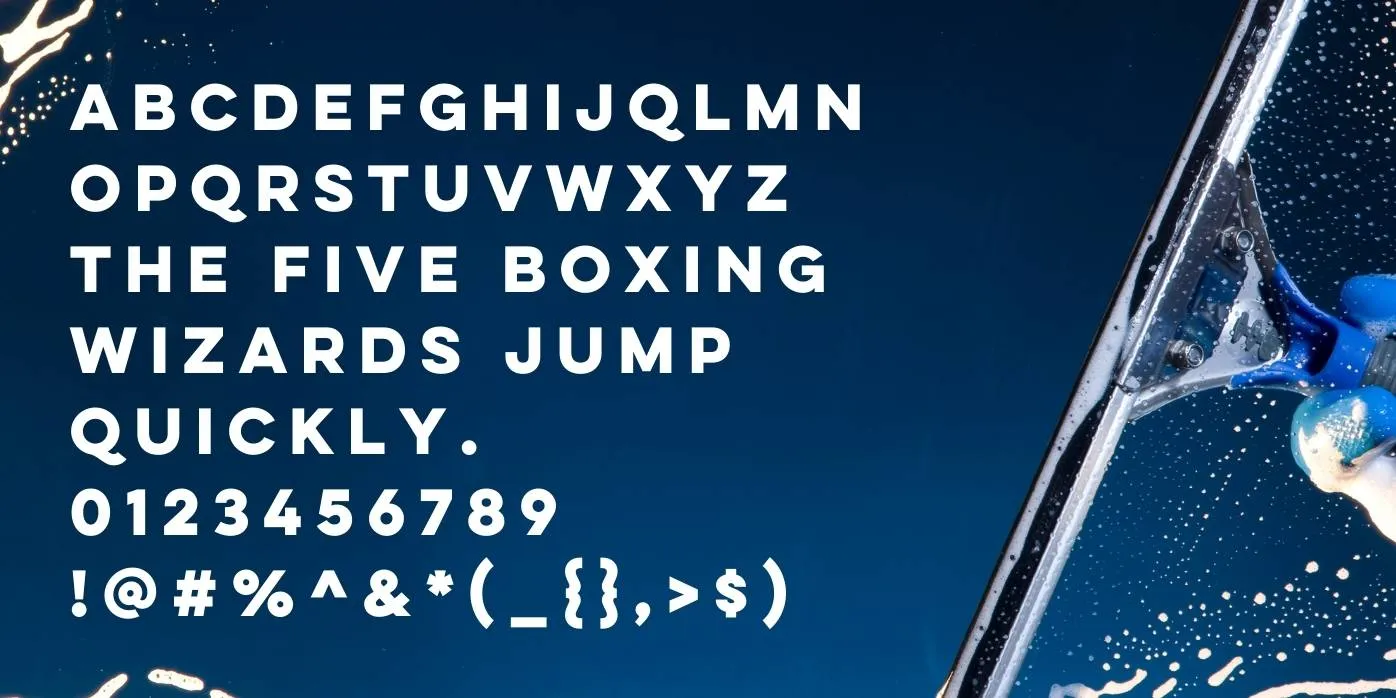
Lulo Clean Font
This awesome font family was designed by well-known and famous designer Ryan Martinson. Lulo Clean Font belongs to the Sans-Serif typeface. This stylish typeface comes in ten different styles. Different styles of this font family are One, One Bold, Two, Two Bold, and continue the same sequence.
This typeface provides differents stylish features. These advanced features are the most accessible to MAC devices and windows. That is why this typeface is mostly used everywhere in the world. This font family will provide the best and high quality look to all of your designs.
Due to its attractive look, you can use this amazing typeface for your official and educational purposes. This typeface is frequently used for designing logos, T-shirts designs, and websites templates. It provides a very flexible way for achieving progress in your projects. If you want to increase the performance of your projects you must pick this classic font.